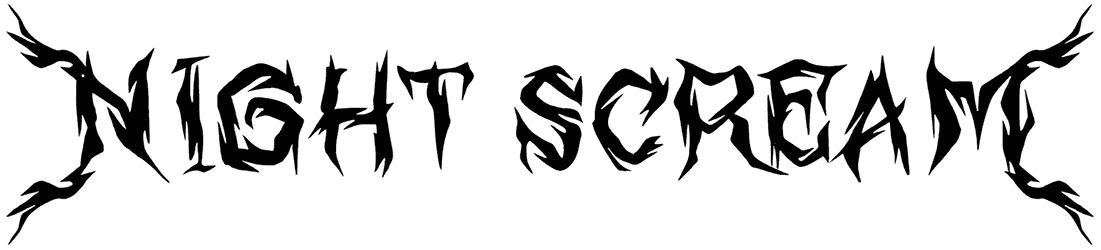
Night Scream Font
Oh dear! It seems like someone’s been murdered here, and we just walked into the crime scene. Perfect! There goes our chance of claiming innocence. So let’s get to the bottom of it and see what got us into this mess in the first place. Sure, we’re going to blame Night Scream for that, agreed?
What’s with those creepy illustrations anyway? Of course, horror fonts are all the same that way, scary and haunted. At least you found the tattoo font you were looking for.